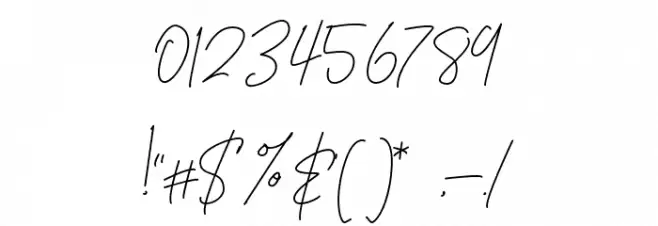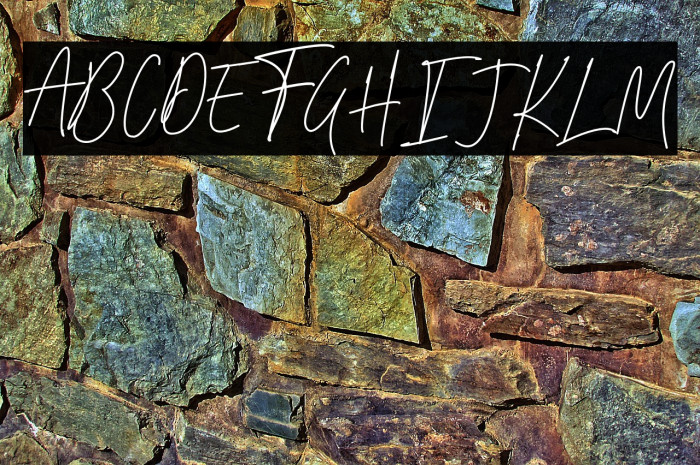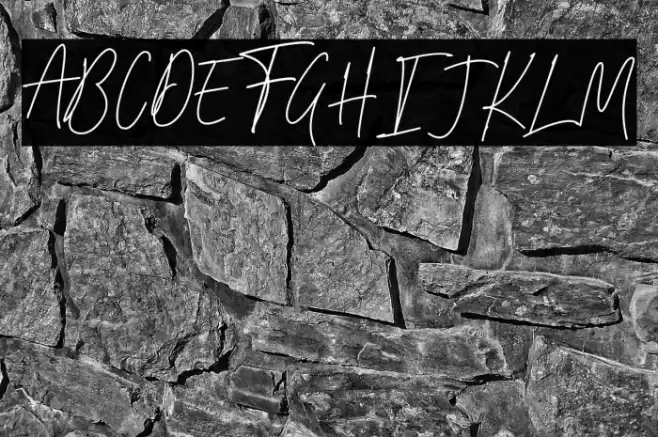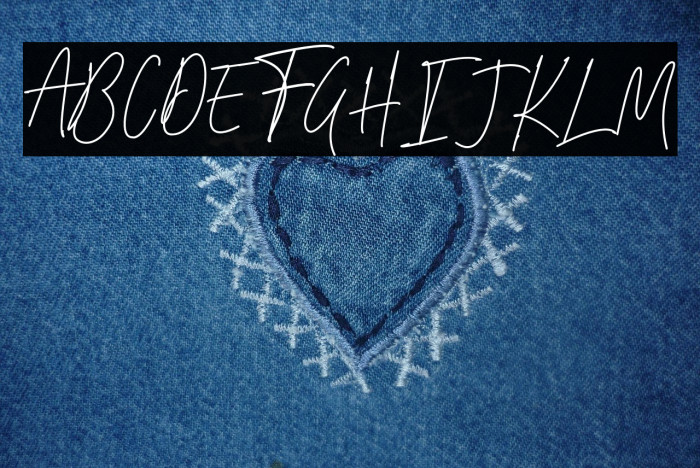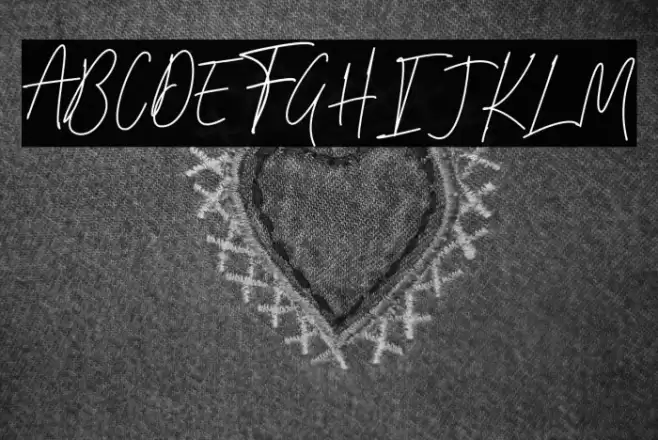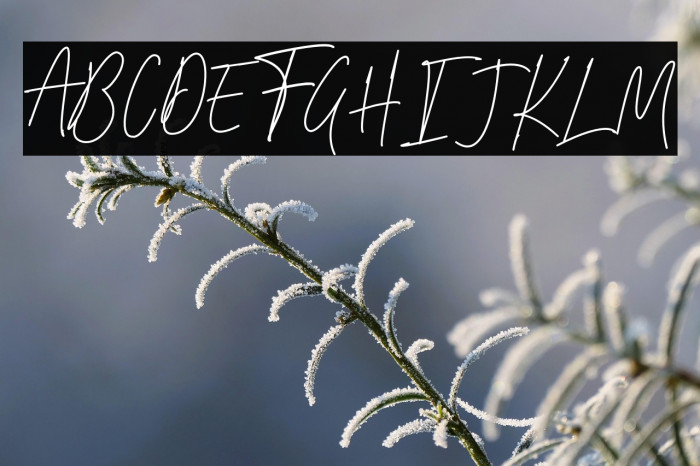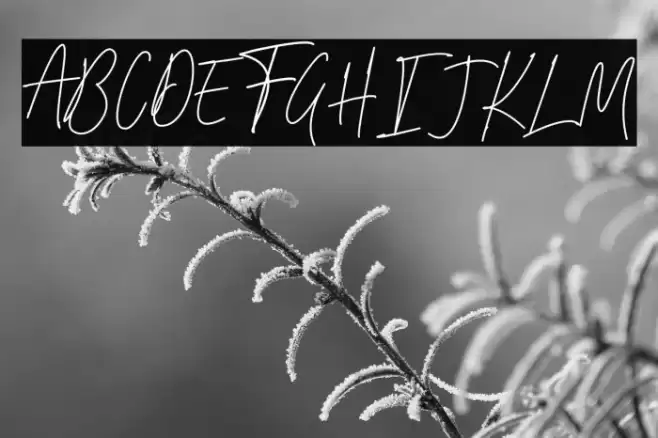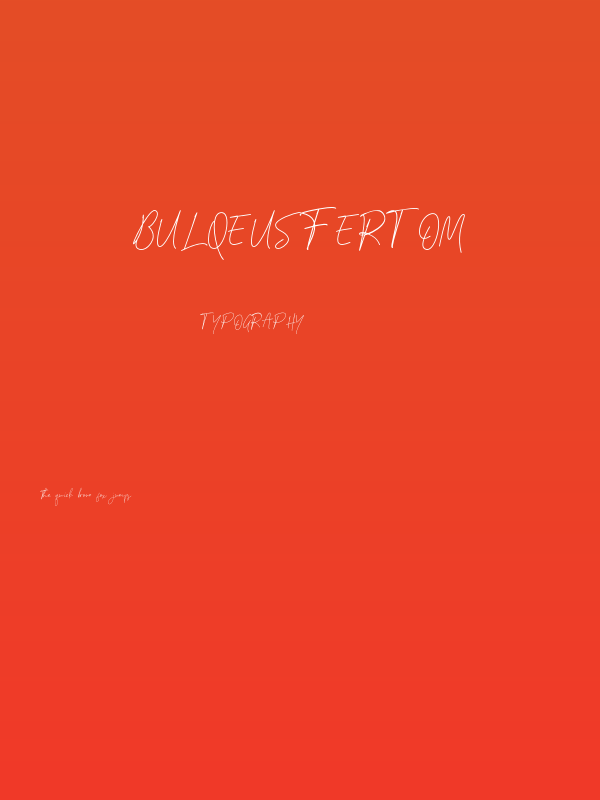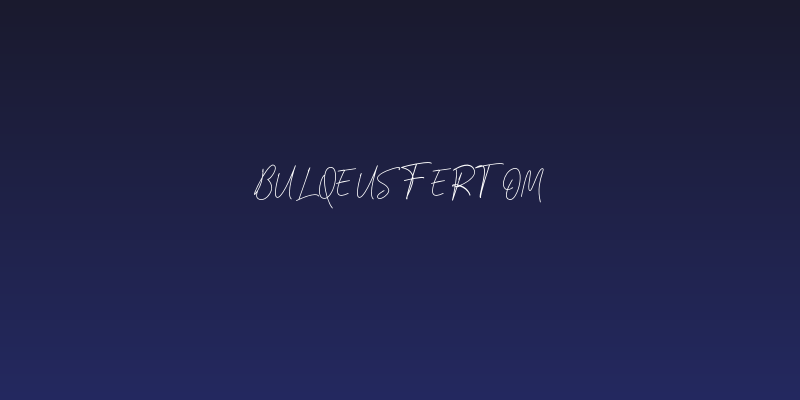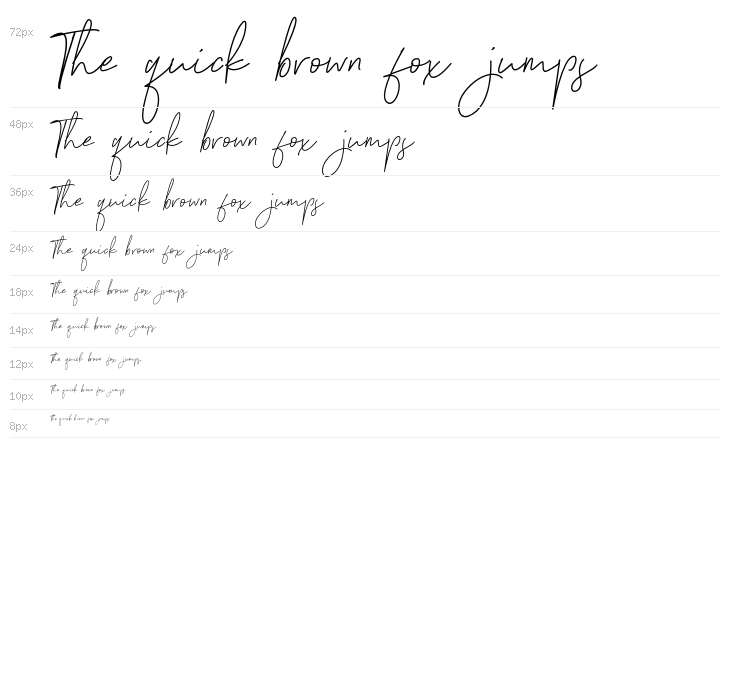
Bulqeusfertom Font
Bulqeusfertom Description
This font features a flowing, cursive style that mimics natural handwriting with a modern twist. The letters are elegantly elongated with smooth curves and a consistent slant, giving it a dynamic and lively appearance. The uppercase letters are slightly larger and more pronounced, while the lowercase letters maintain a delicate and graceful form. The numerals and special characters are crafted with the same fluidity, ensuring a cohesive look across all text. This font exudes a sense of sophistication and creativity, making it suitable for a variety of design applications.